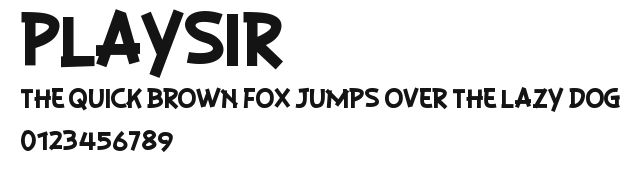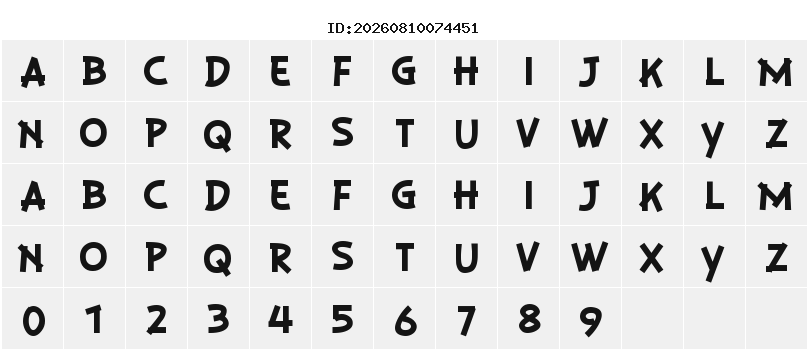
• Font Name: PLAYSIR
• Full Font Name: PLAYSIR
• Version: Version 1.00 October 9, 2014, initial release
• Designer: Situjuh Nazara
About PLAYSIR.otf
PLAYSIR.otf is a modern, elegant sans-serif font designed for ultimate readability and visual harmony. Perfect for branding, headlines, web design, and print materials.